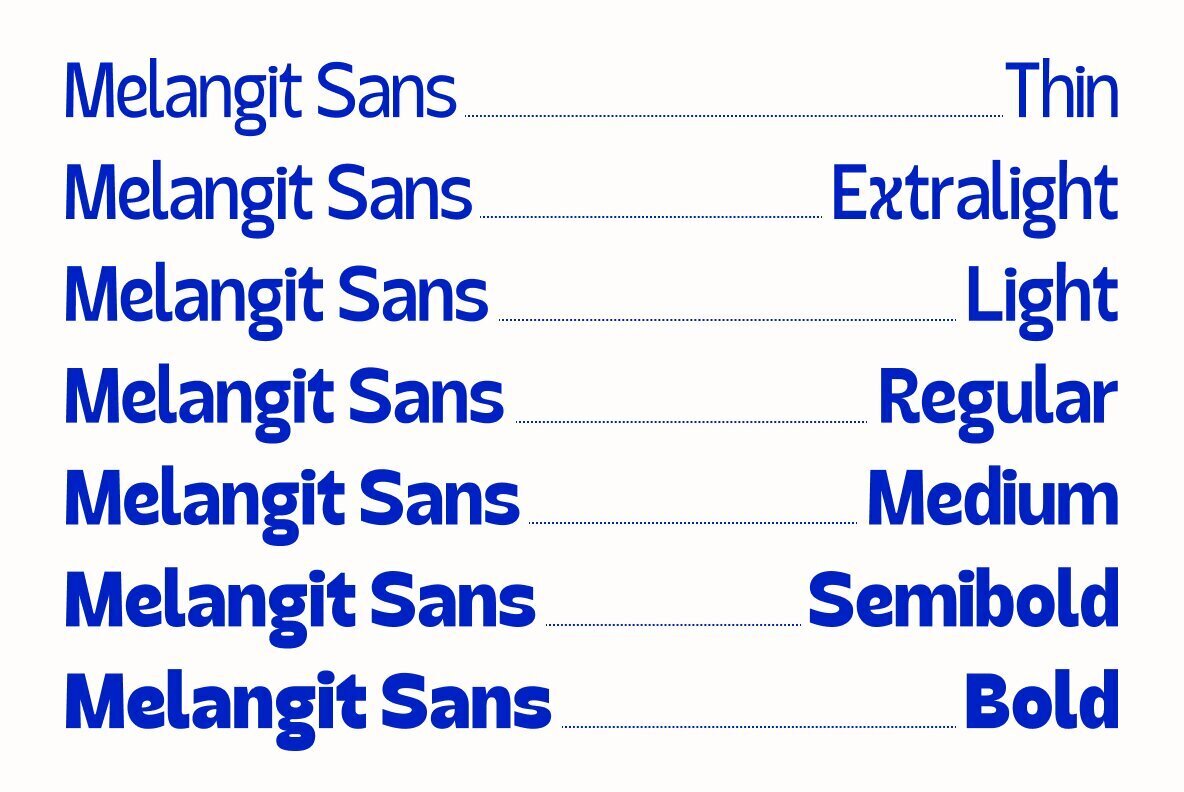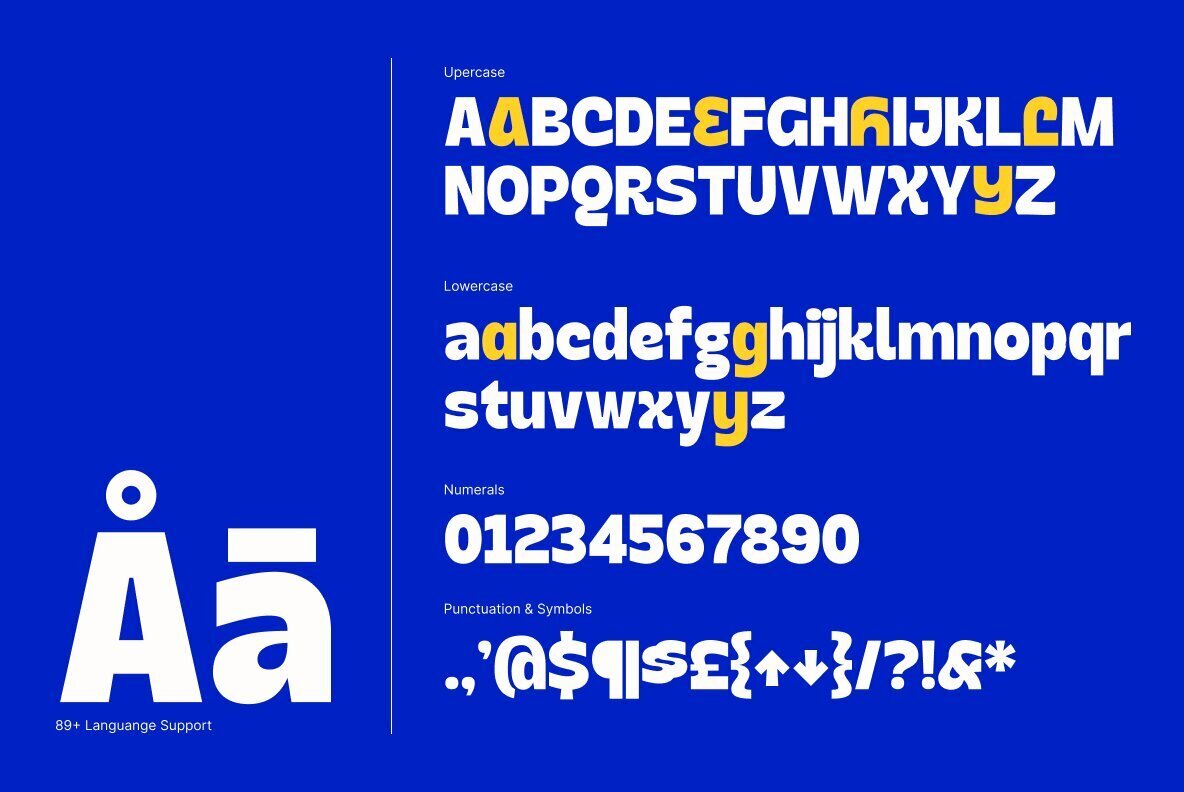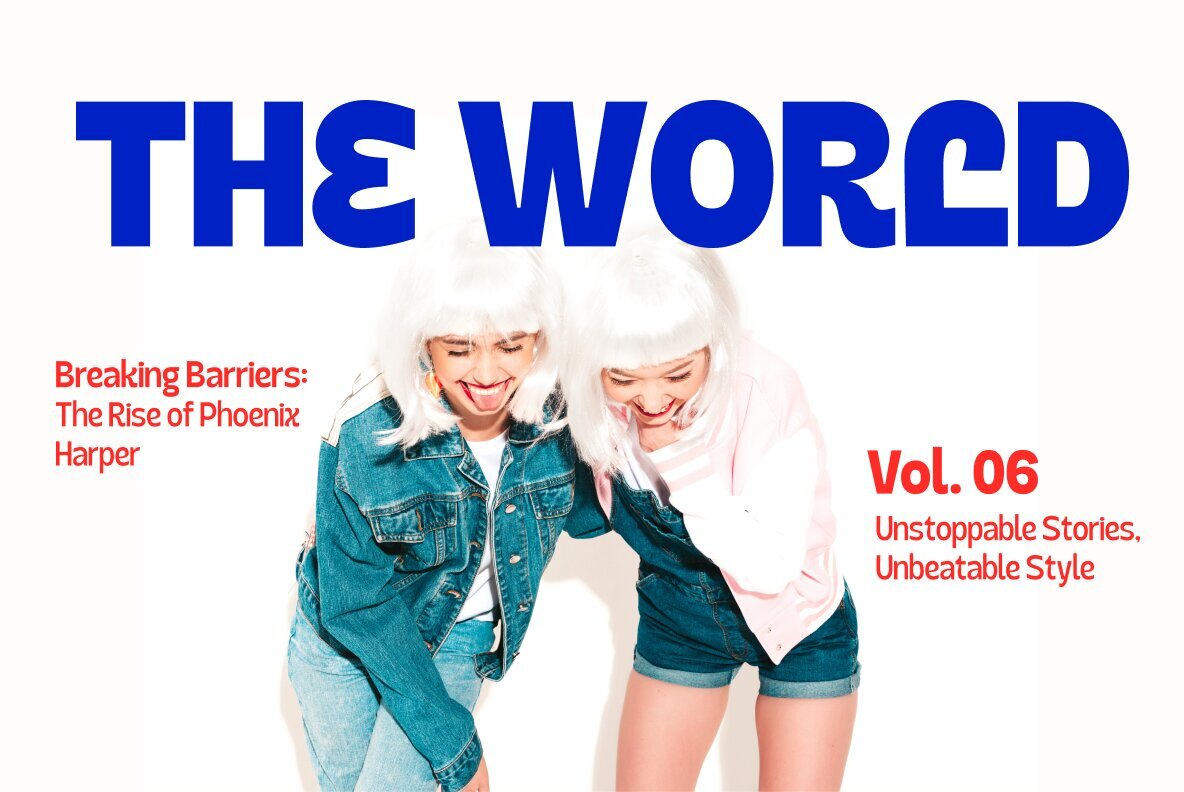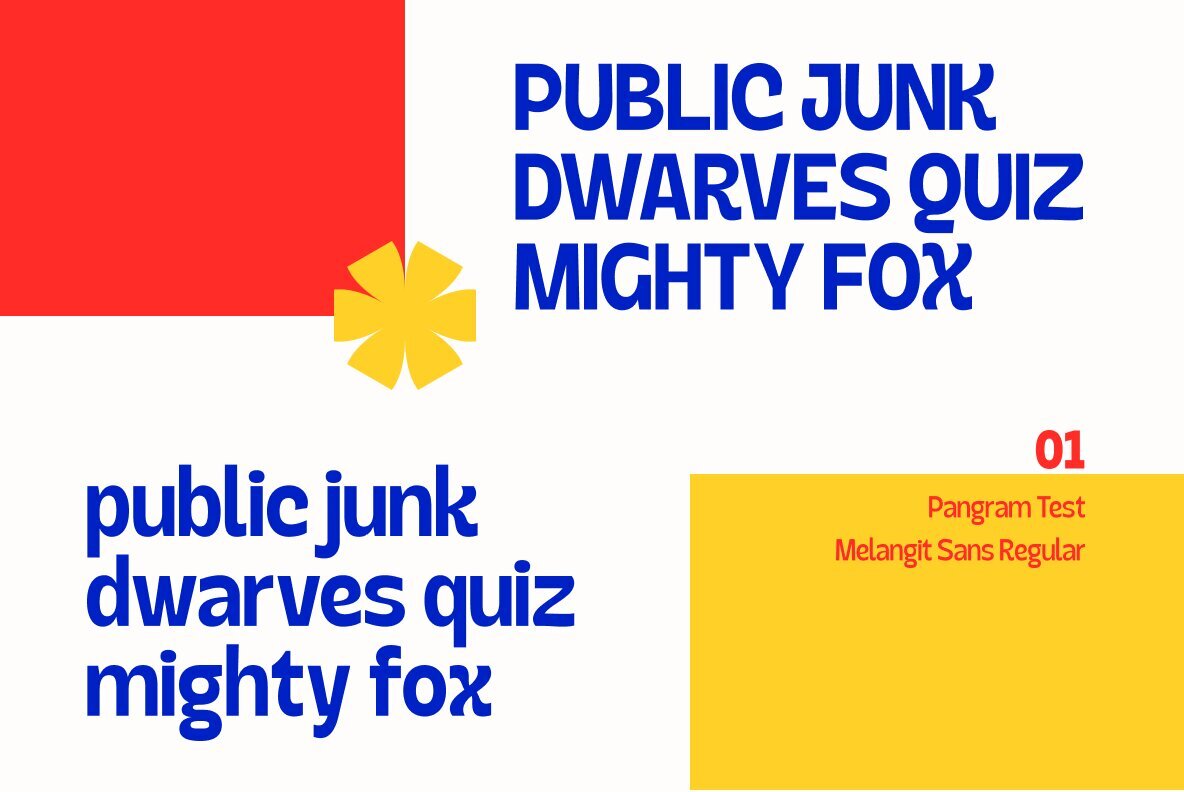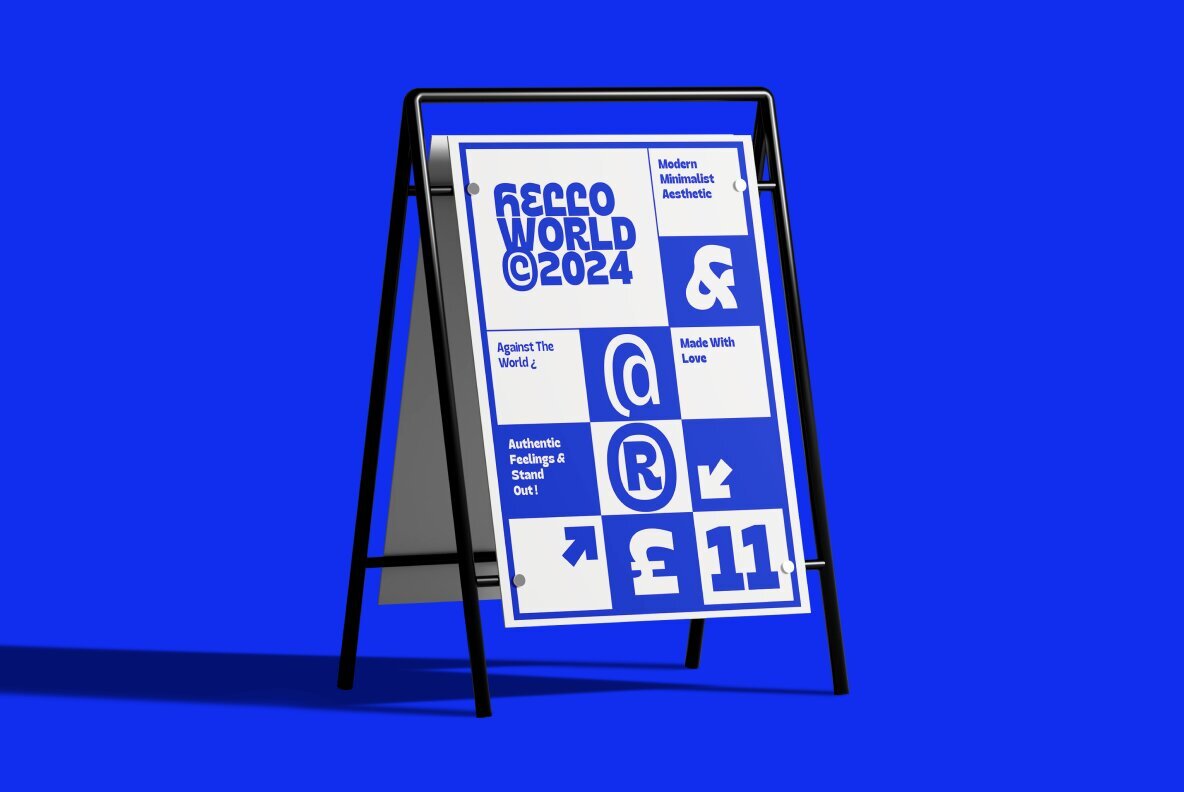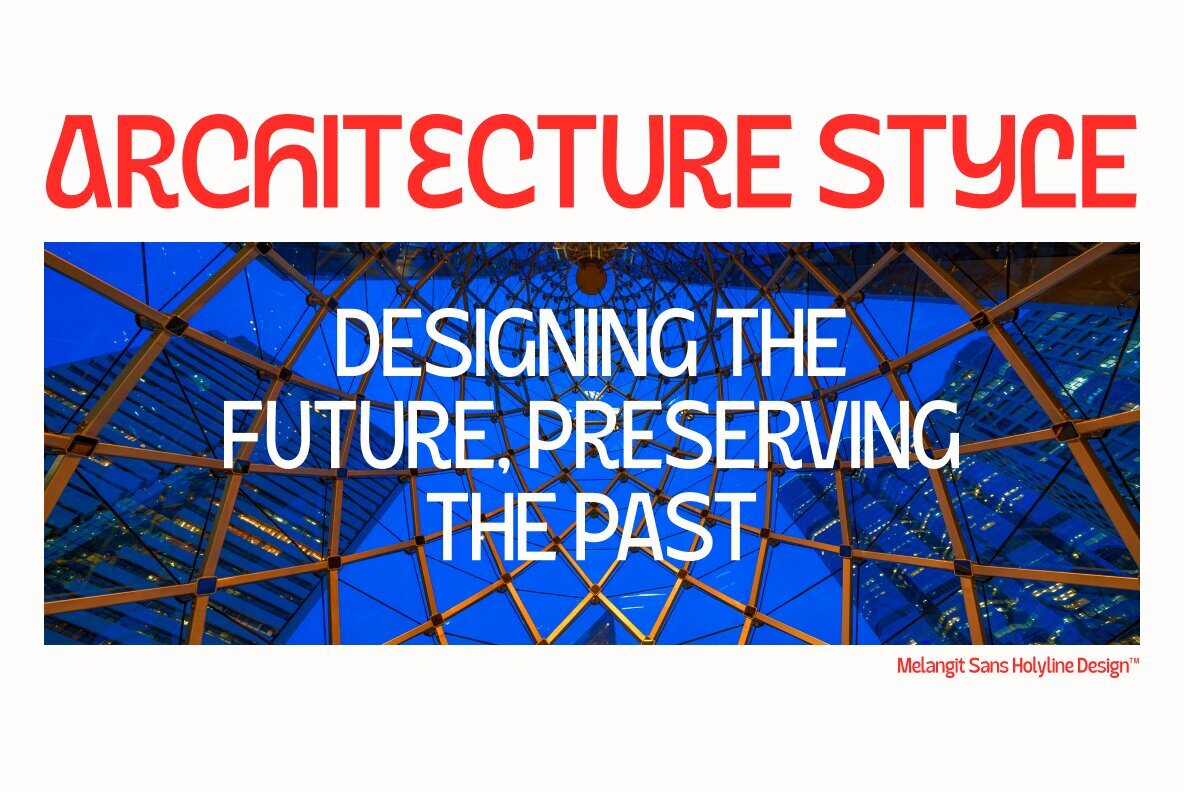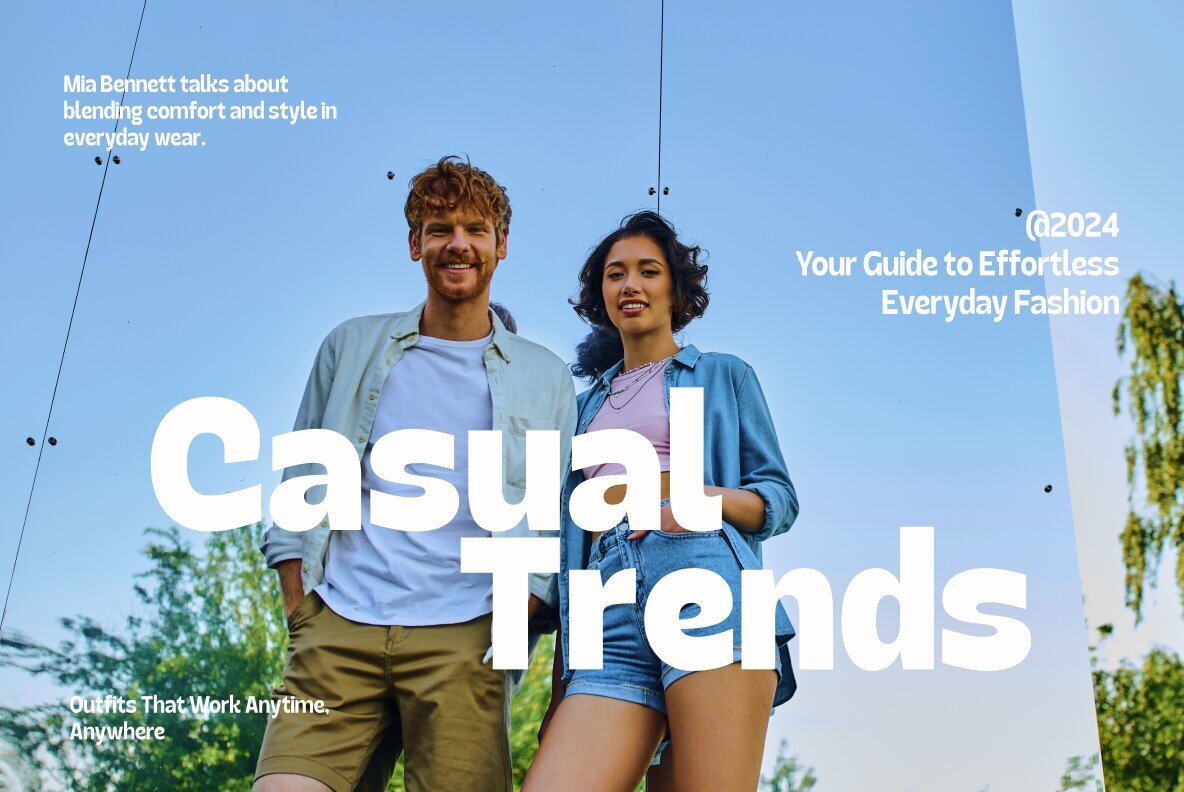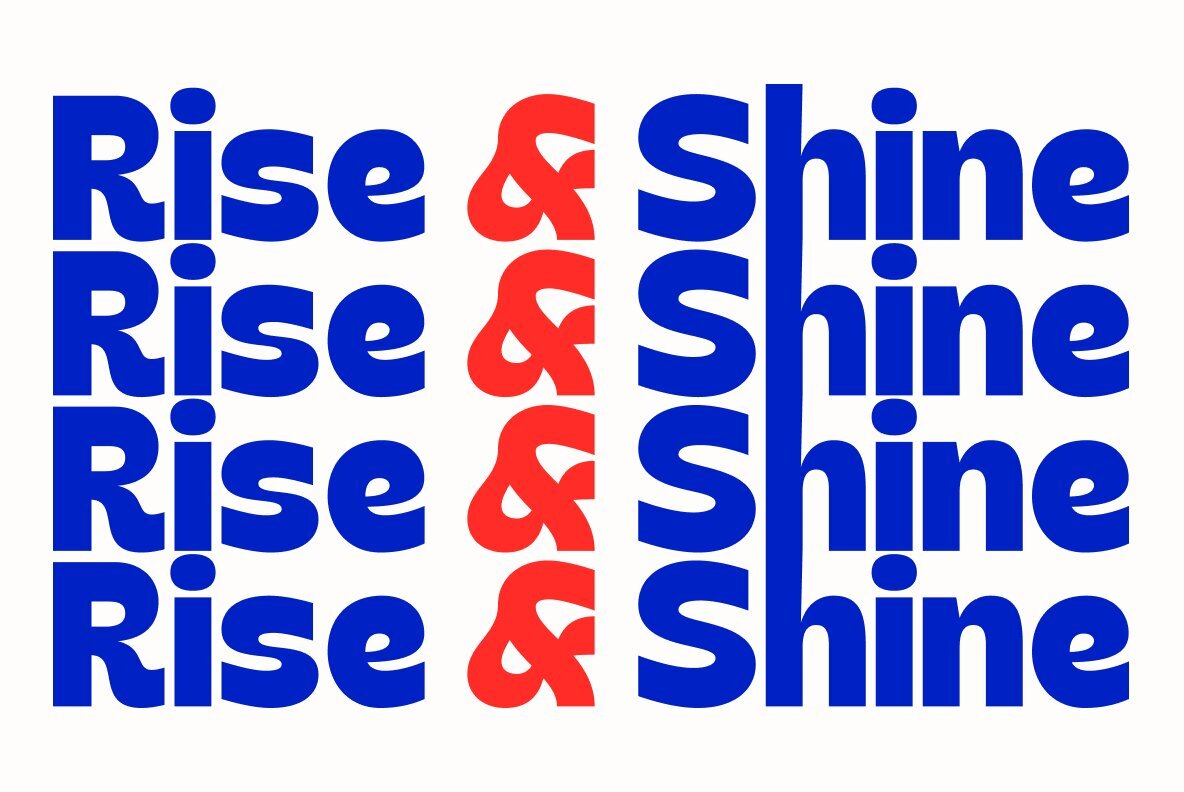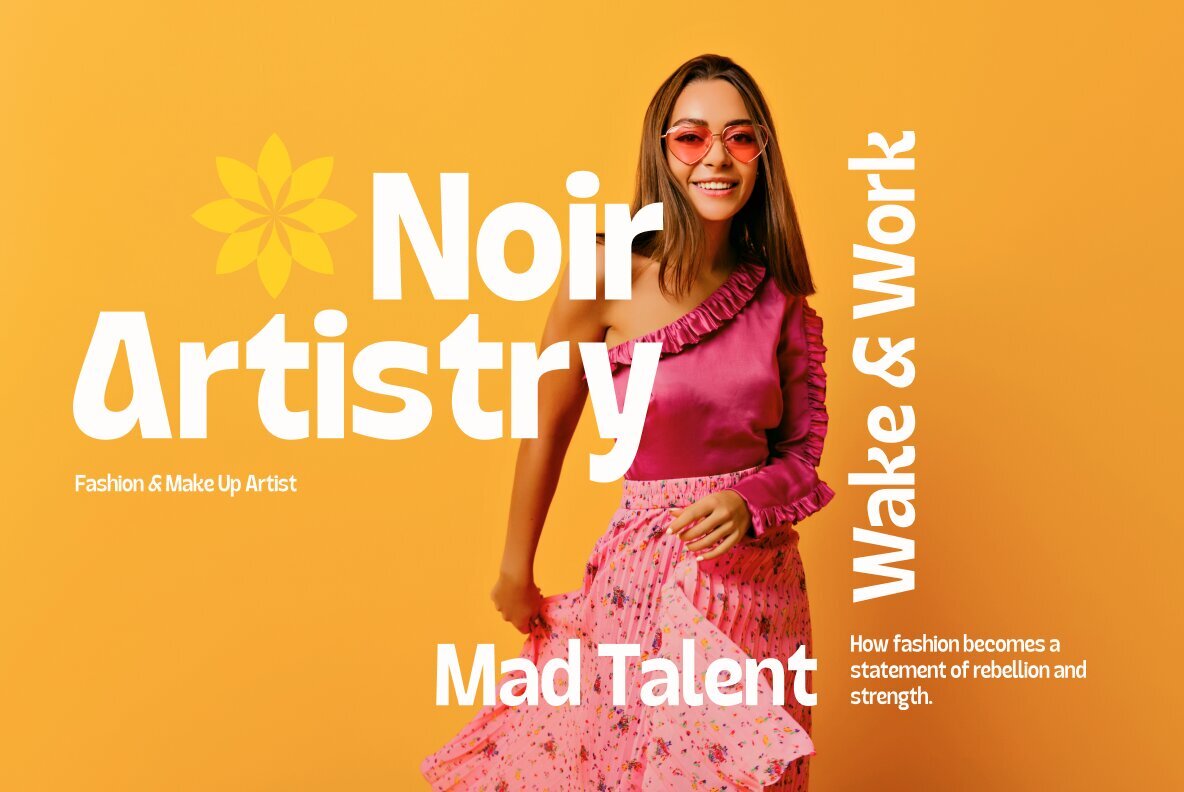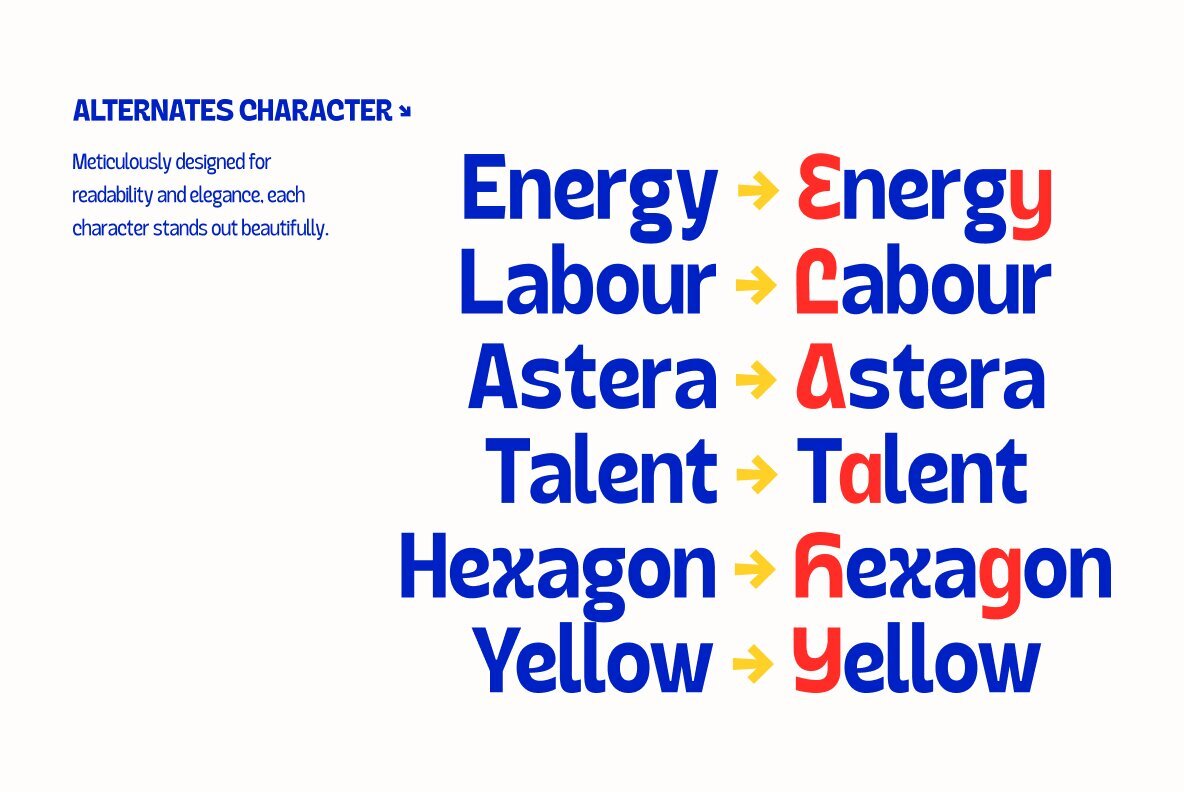
Melangit Sans Font
Melangit Sans is a vibrant sans serif display font that draws inspiration from modern grotesk typefaces, offering a sleek and playful edge. Its contemporary style makes it ideal for magazine layouts, bold headlines, and innovative typography projects. This font stands out with its versatility, featuring 7 weights from thin to bold, suitable for a variety of design needs.
With the inclusion of alternates, Melangit Sans allows designers to dynamically craft smooth curves and elegant shapes, making it easy to achieve visually striking results. Whether you're working on unique branding, editorial designs, or impactful typographic compositions, Melangit Sans brings a touch of modern sophistication balanced with a playful flair to your projects.